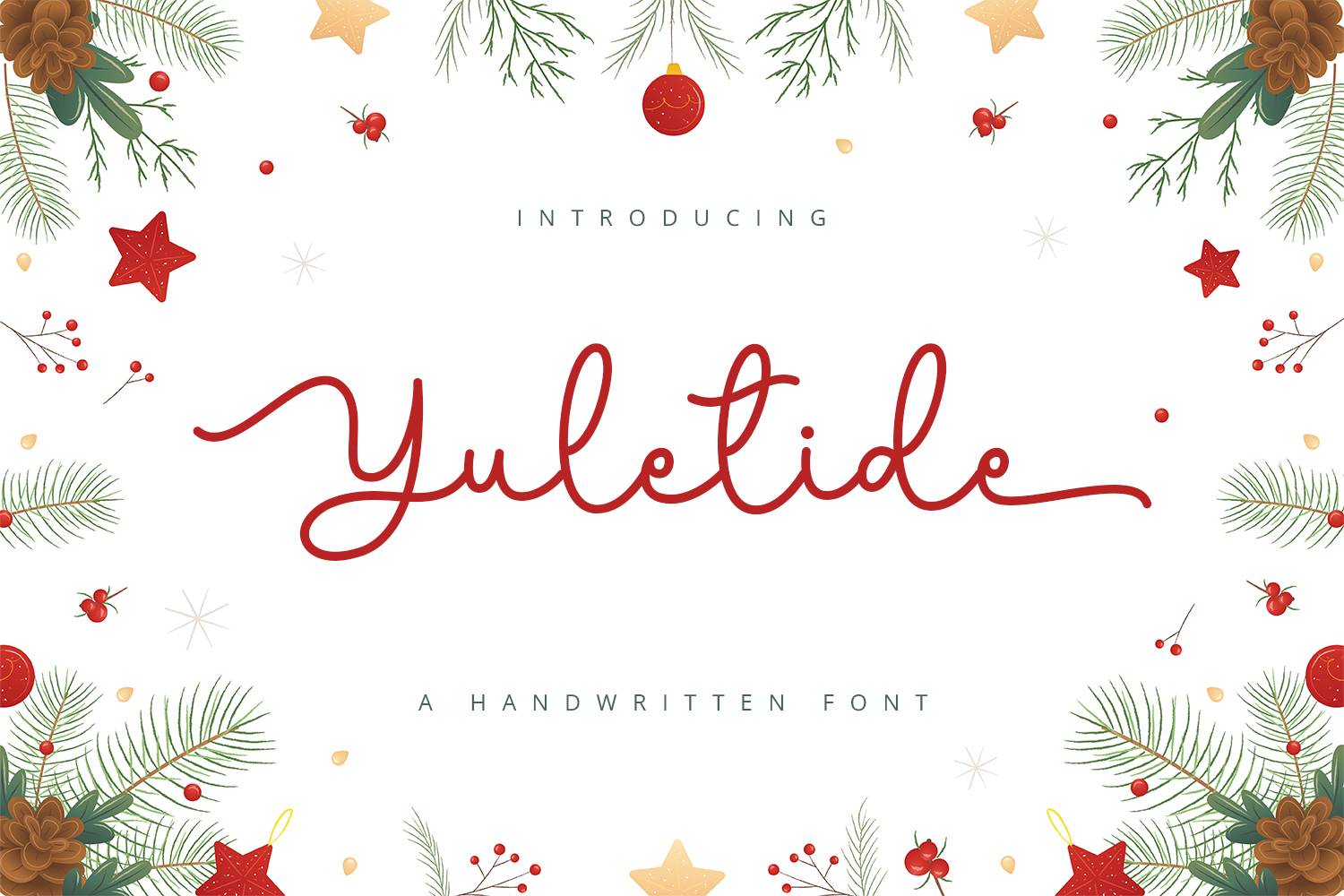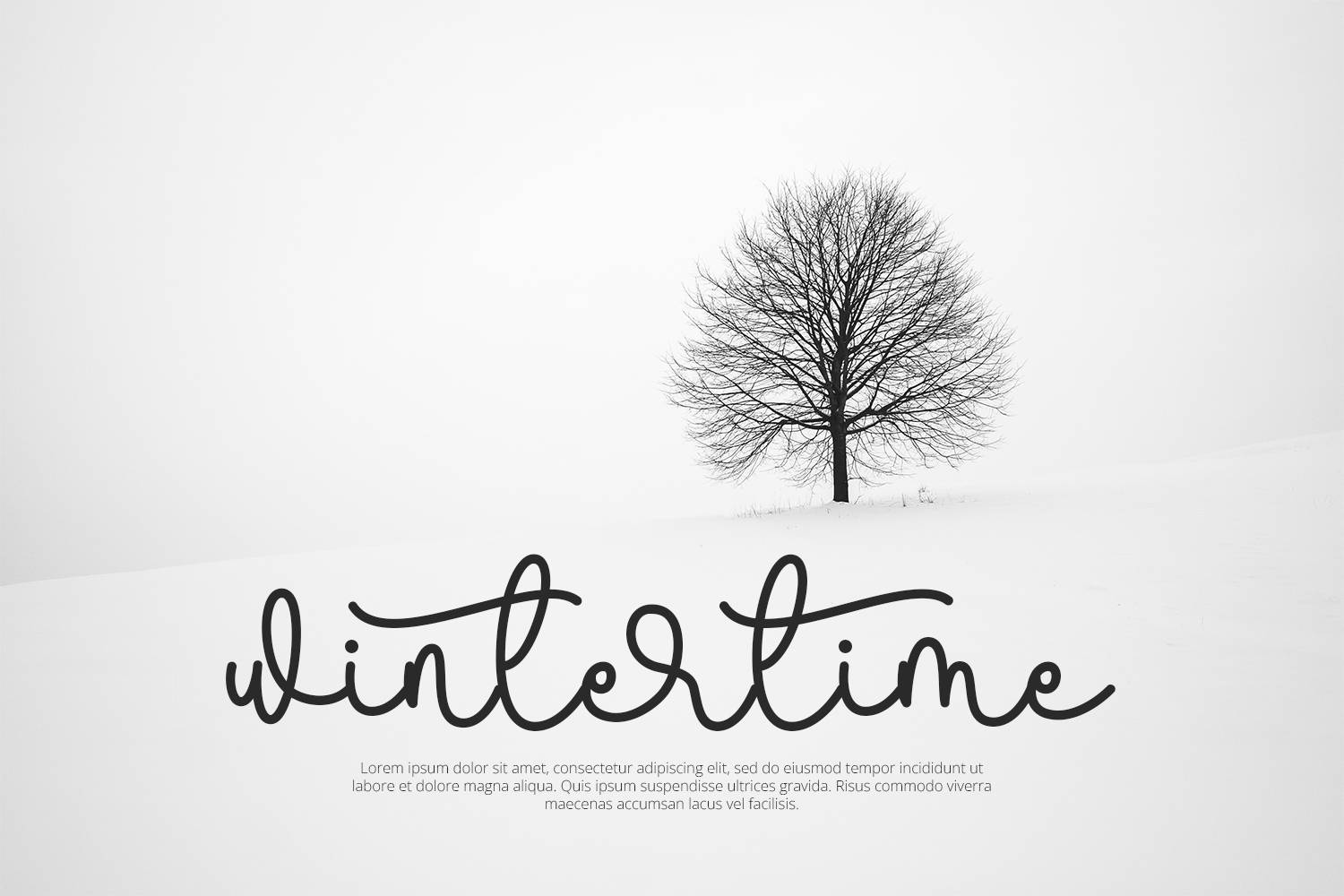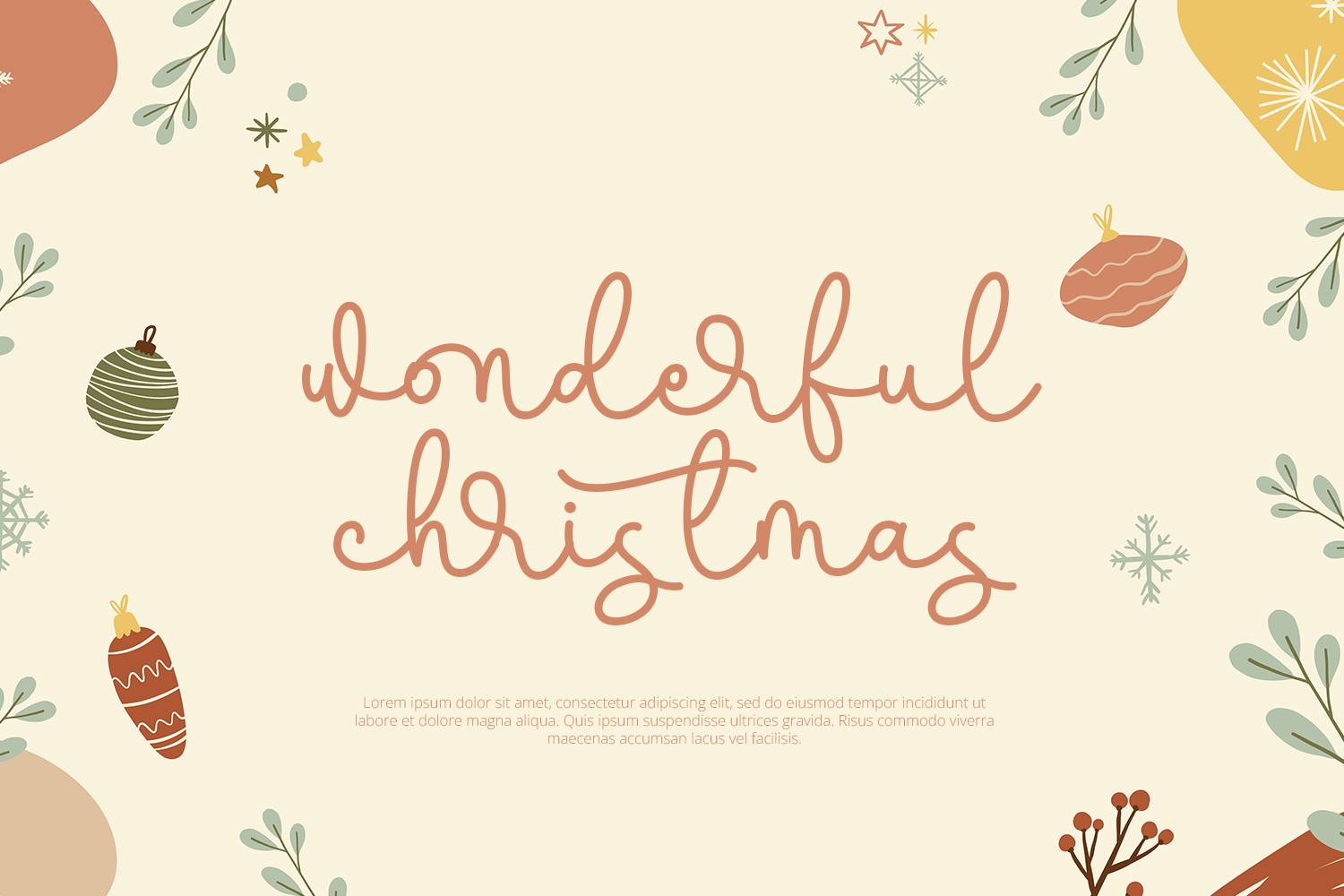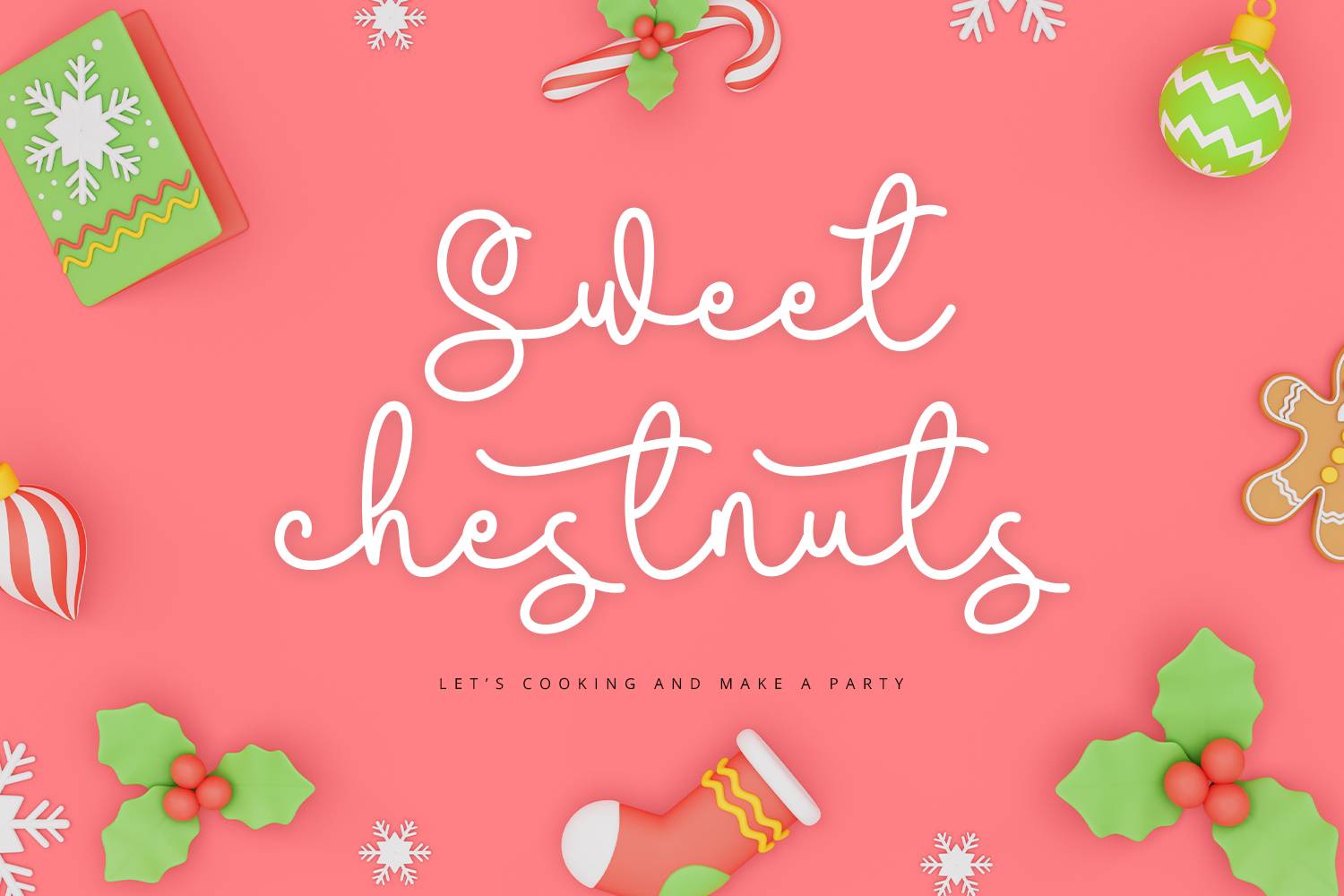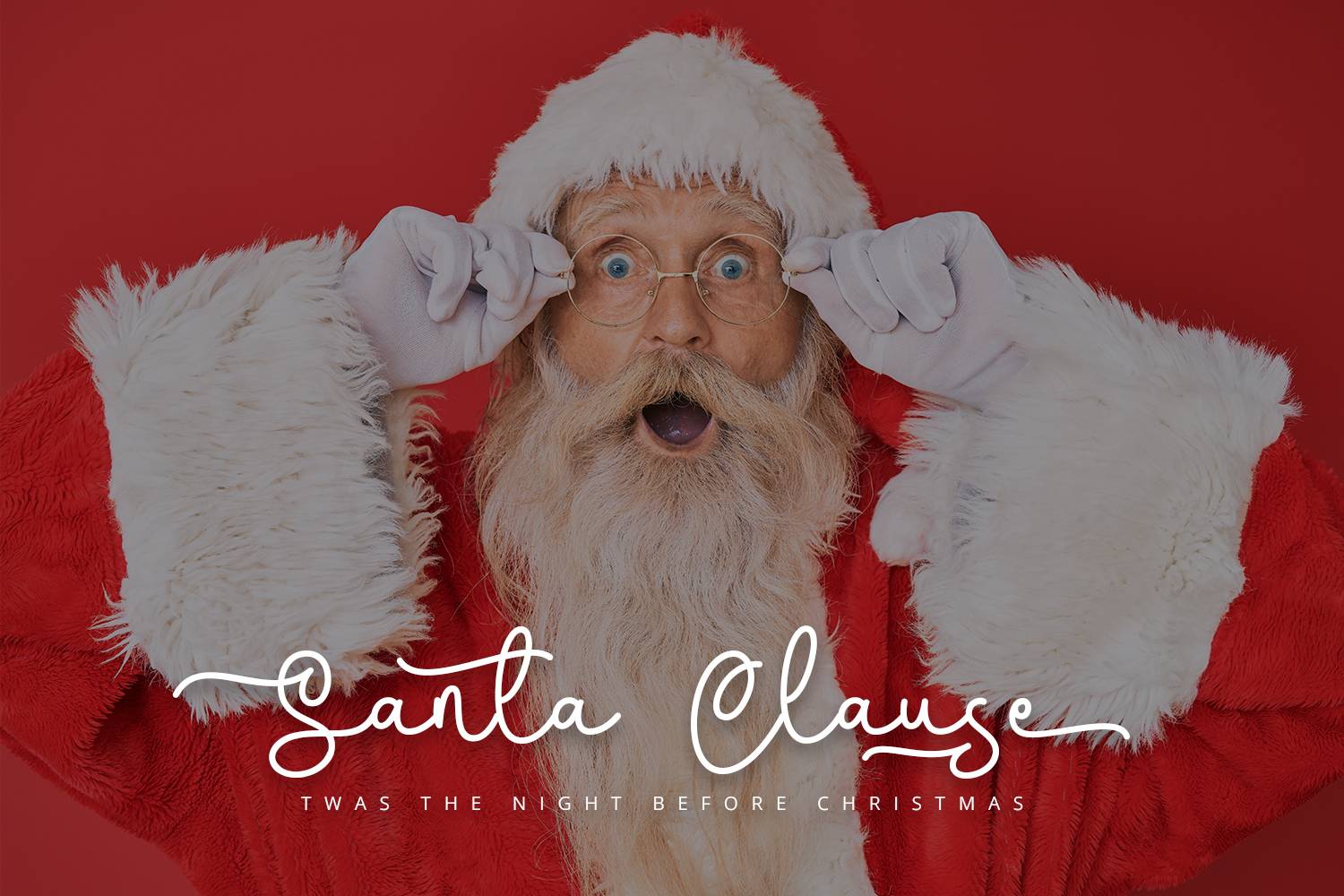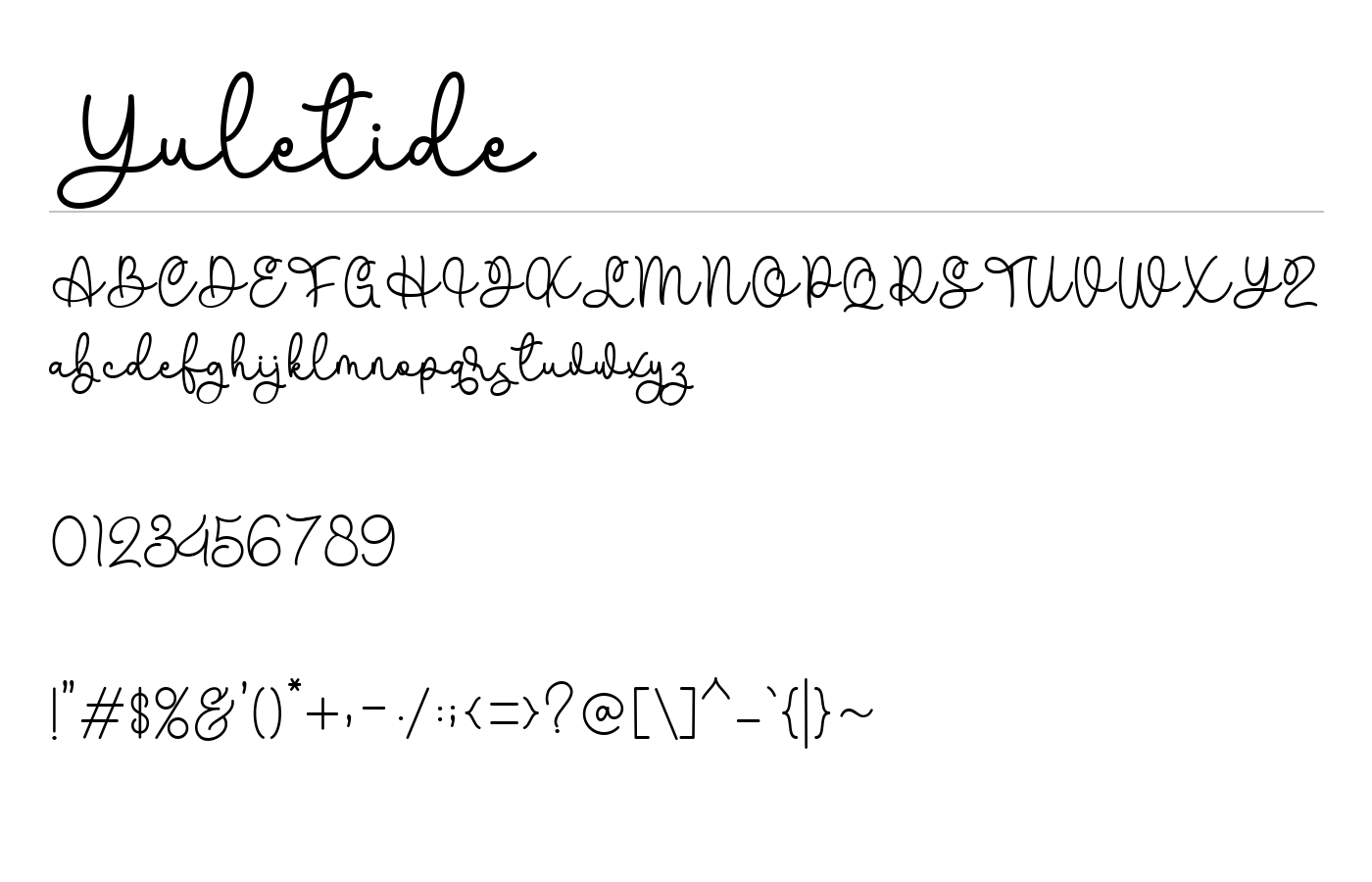
Yuletide is a whimsical handwritten script font characterized by its delicate, flowing lines and playful loops, giving it a charming and festive feel. It features a light weight with a smooth, consistent stroke and elegant, rounded letterforms that evoke a friendly and informal vibe. Ideal for holiday-themed designs, invitations, and whimsical branding, Yuletide adds a personal, joyful touch that resonates well with warm and creative expressions.
Yuletide Font
About Yuletide Font